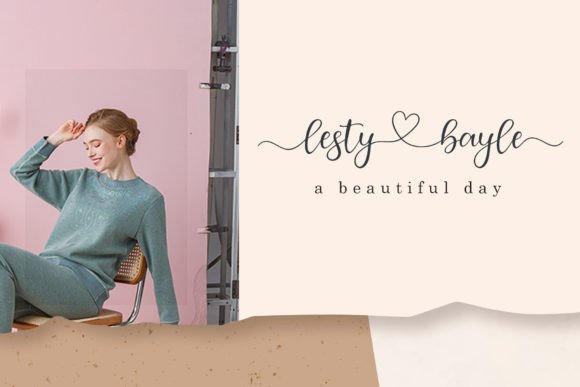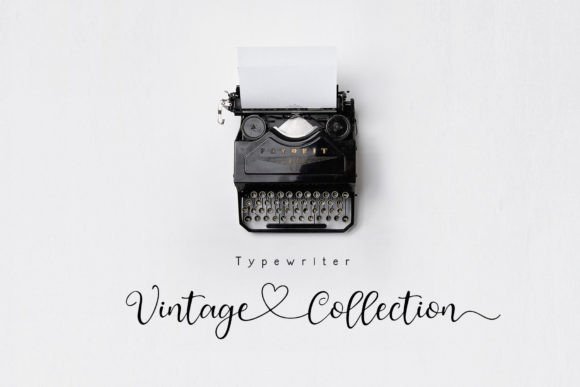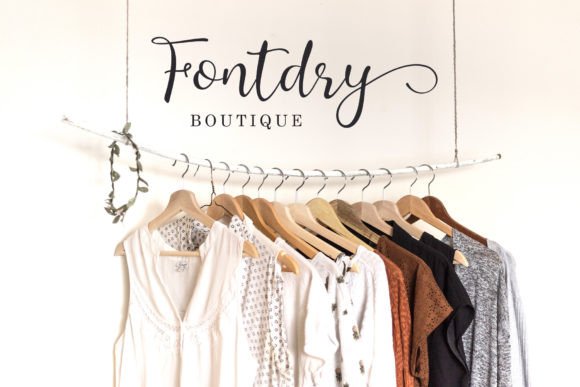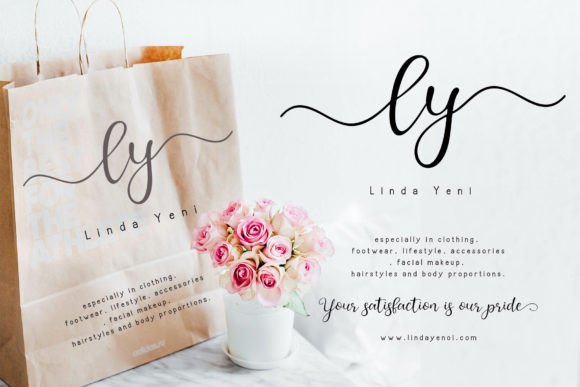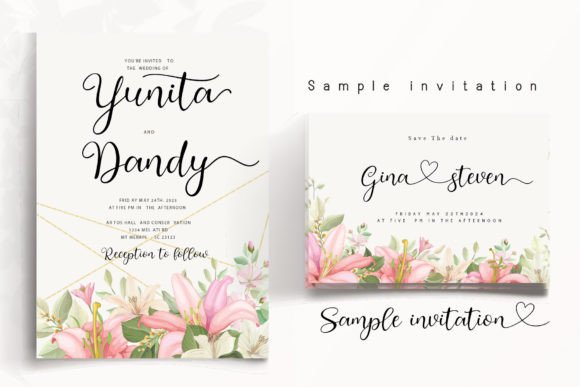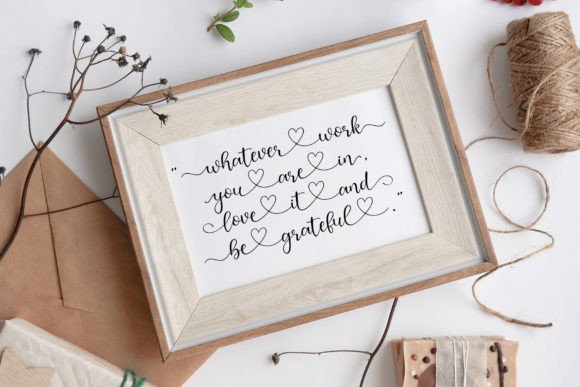
Adira Smile Font: The Perfect Handwritten Touch for Your Designs
Are you looking for a font that exudes charm and elegance? Look no further than Adira Smile Font. This beautiful handwritten font is perfect for adding a personal touch to your designs, making them stand out from the crowd. In this article, we’ll explore the features and benefits of Adira Smile Font, and how it can elevate your designs to the next level.
What is Adira Smile Font?
Adira Smile Font is a modern handwritten font that feels equally charming and elegant. Its unique and flowing script makes it perfect for a variety of design projects, from wedding invitations and thank you cards to quotes, greeting cards, logos, business cards, and more. The font’s versatility and flexibility make it a great choice for designers and crafters looking to add a personal touch to their work.
Key Features of Adira Smile Font
- Handwritten script: Adira Smile Font features a beautiful, flowing handwritten script that adds a personal touch to any design.
- Charming and elegant: The font’s unique and elegant style makes it perfect for designs that require a touch of sophistication.
- Versatile: Adira Smile Font can be used for a wide range of design projects, from wedding invitations and greeting cards to logos and business cards.
- Easy to read: The font is clear and easy to read, making it perfect for designs that require a high level of legibility.
Benefits of Using Adira Smile Font
Using Adira Smile Font in your designs can bring a range of benefits, including:
- Adding a personal touch: The font’s handwritten script adds a personal touch to your designs, making them more relatable and engaging.
- Standing out from the crowd: Adira Smile Font’s unique and elegant style makes it perfect for designs that need to stand out from the crowd.
- Increasing legibility: The font’s clear and easy-to-read style makes it perfect for designs that require a high level of legibility.
- Enhancing brand identity: Adira Smile Font can be used to create a consistent brand identity across a range of design projects.
Design Ideas Using Adira Smile Font
Adira Smile Font can be used for a wide range of design projects, including:
- Wedding invitations: The font’s elegant and charming style makes it perfect for wedding invitations and other wedding-related designs.
- Thank you cards: Adira Smile Font is a great choice for thank you cards and other greeting cards.
- Quotes and posters: The font’s clear and easy-to-read style makes it perfect for quotes and posters.
- Logos and business cards: Adira Smile Font can be used to create unique and elegant logos and business cards.
Tips for Using Adira Smile Font
Here are some tips for using Adira Smile Font in your designs:
- Use it sparingly: Adira Smile Font is a elegant and charming font, so use it sparingly to avoid overwhelming your design.
- Pair it with other fonts: The font can be paired with other fonts to create a unique and interesting design.
- Experiment with colors: Adira Smile Font looks great in a range of colors, so experiment with different colors to find the one that works best for your design.
Adira Smile Font is a beautiful and elegant handwritten font that can add a personal touch to your designs. Its versatility and flexibility make it perfect for a wide range of design projects, from wedding invitations and greeting cards to logos and business cards. With its clear and easy-to-read style, Adira Smile Font is a great choice for designers and crafters looking to elevate their designs to the next level.